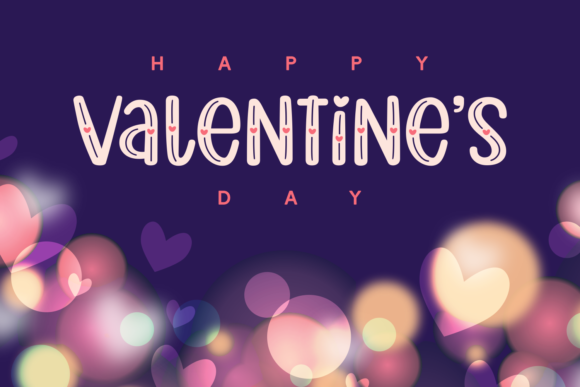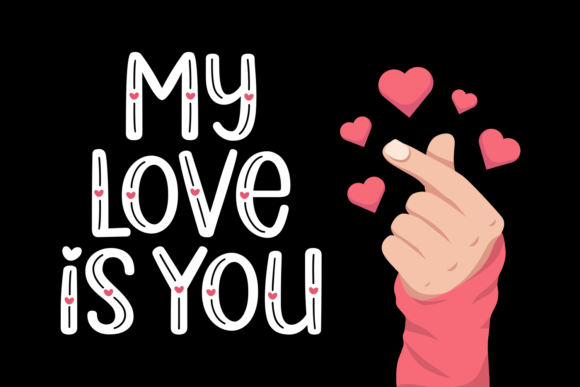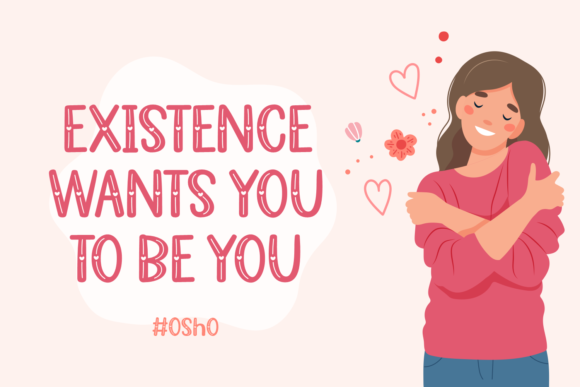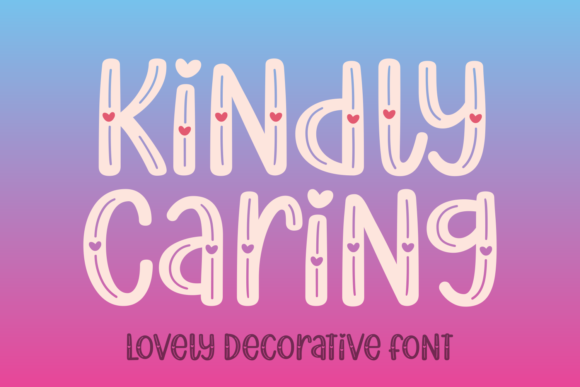
Introduction to Kindly Caring Font
Kindly Caring is a clean and adaptable display font.
Whatever the topic, this font will be a wonderful asset to your font library, as it has the potential to enhance any creation .
Why Choose Kindly Caring Font?
Kindly Caring Font offers exceptional quality and versatility, making it a valuable addition to your design toolkit. Whether you’re creating for personal projects or commercial use, Kindly Caring Font delivers professional results.